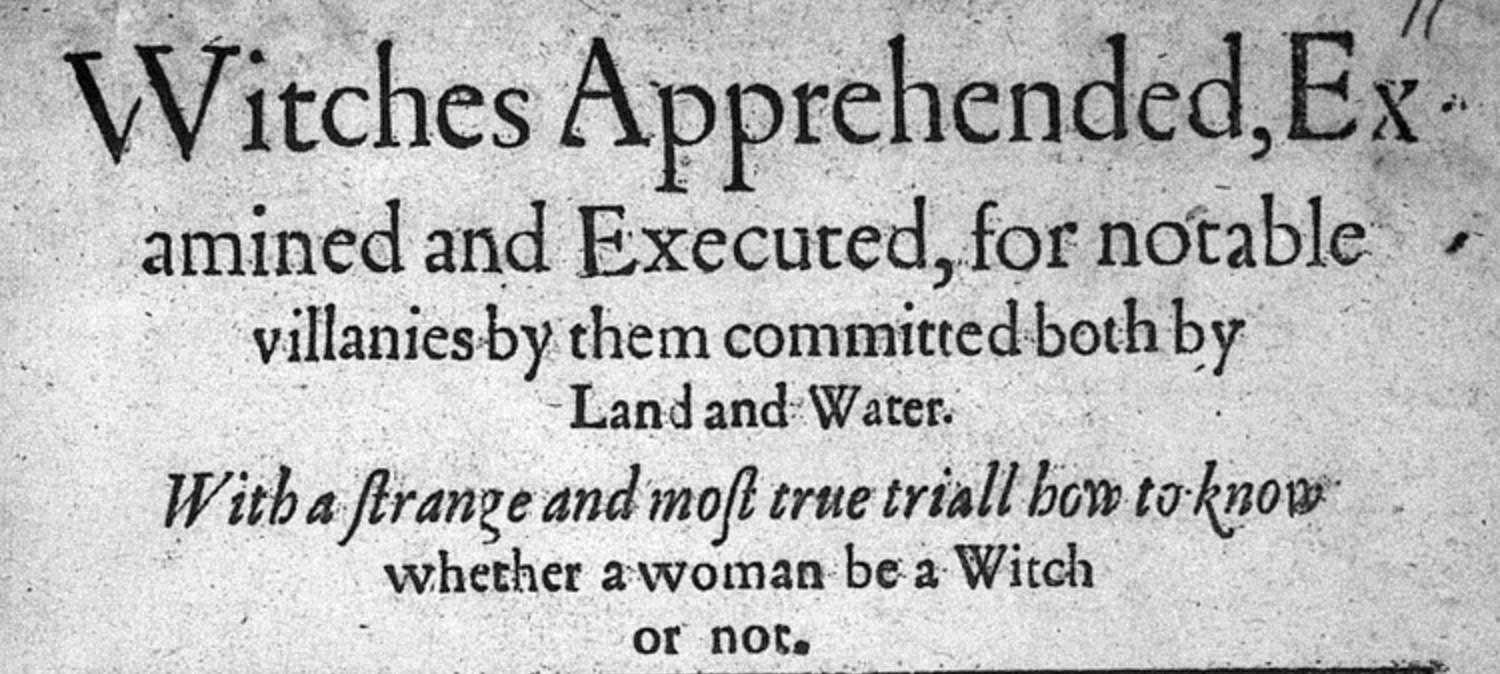
1613 English typeface in Witchcraft Publication?
Hello community! I am looking for an id for the font used in this publication on witchcraft from 613 in England - 'Witches Apprehended, Examined and Executed'. Any help and /or pointers for fonts available which closely match much appreciated!
In that era, typefaces rarely had names as they do now. And British printers of the time often imported type from other countries (primarily Holland). The first British type foundry of any repute is credited to William Caslon more than a century later, in 1720.
Van den Keere is somewhat close, and is based on sources of that general era.
Depending on what you wish to do, there are "antiqued" variants of several similar typefaces available for use in recreating typed copy that looks "old." Some are better than others.